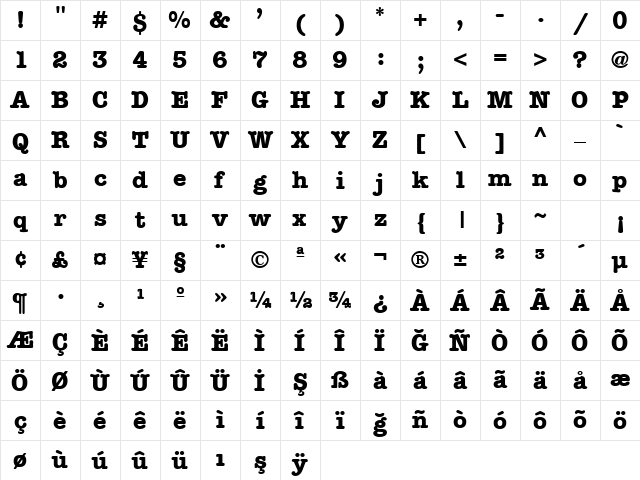
TR Memorandum Bold
TR Memorandum Family
TR Memorandum Bold
Design Context for TR Memorandum
TR Memorandum is a composed and adaptable typeface that performs quietly and consistently across a wide range of design contexts. Its bold stroke weight gives it real presence on the page.